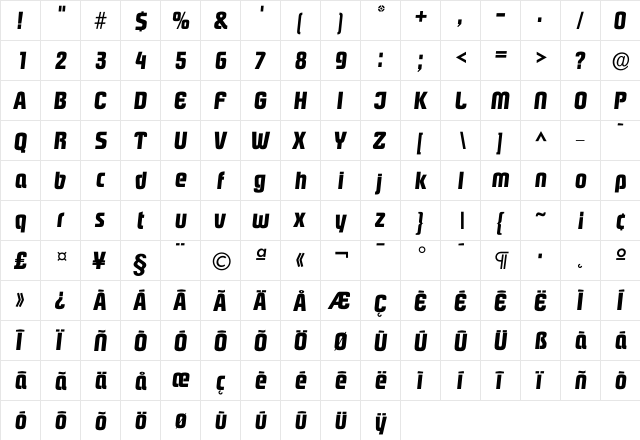
Ipasadena Bold
Design Context for Ipasadena Typeface
Ipasadena takes a measured approach to typography — its balanced proportions and neutral character make it a reliable workhorse for both digital and print work. The heavy weight commands attention and anchors typographic hierarchies.